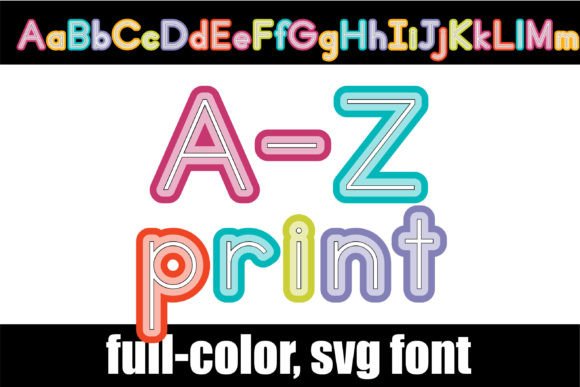
Unleash your creativity with A-z Print Font, the vibrant and playful font family designed to bring joy and excitement to your designs. Dive into a world of colors and let your imagination soar as you explore the possibilities of this enchanting font.
Crafted by the talented team at Illustration Ink, A-z Print Font is a full-color font that bursts with life. Its traditional print style lettering, outlined in a rainbow of hues, adds a touch of whimsy and charm to any project. Whether you're creating invitations, posters, social media graphics, or anything in between, A-z Print Font is sure to make your designs pop with personality.
While color fonts may initially appear black in non-compatible programs or in the preview window, fear not! Once you start typing, the magic will unfold, and the colors will come to life, transforming your words into vibrant works of art.
A-z Print Font is a versatile font family that thrives in a variety of design applications. Create eye-catching logos and branding, elevate your web designs, or bring your print projects to life with its captivating charm. The possibilities are endless.
Best of all, A-z Print Font is a high-quality font that maintains its pristine resolution even when scaled, ensuring sharpness and clarity in any size. Its vector-based format guarantees crisp and clean lines, making it perfect for large-scale designs.
Join the creative revolution and experience the joy of A-z Print Font. With its vibrant colors, playful style, and versatility, this font is sure to become your go-to choice for adding a touch of magic to your designs.